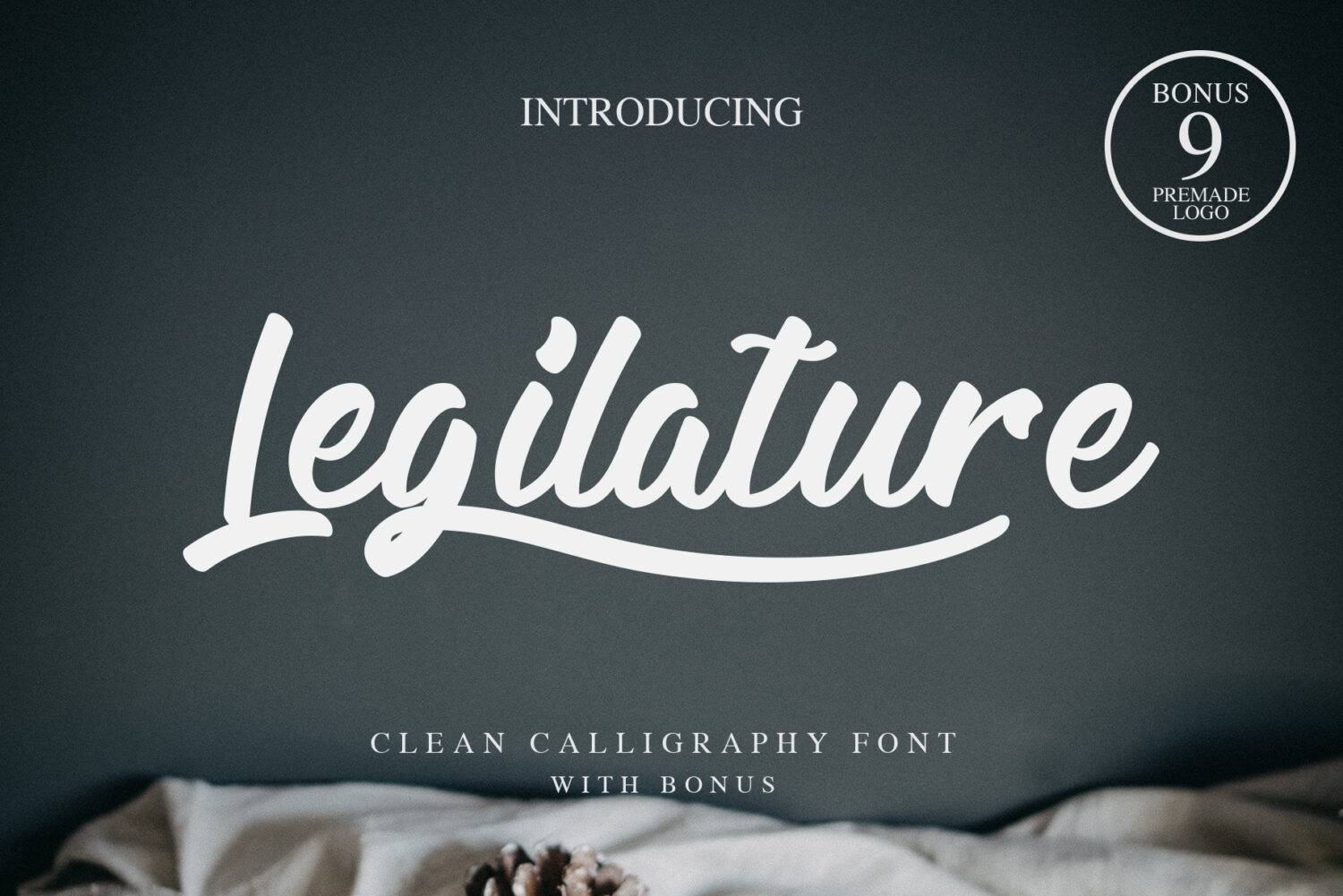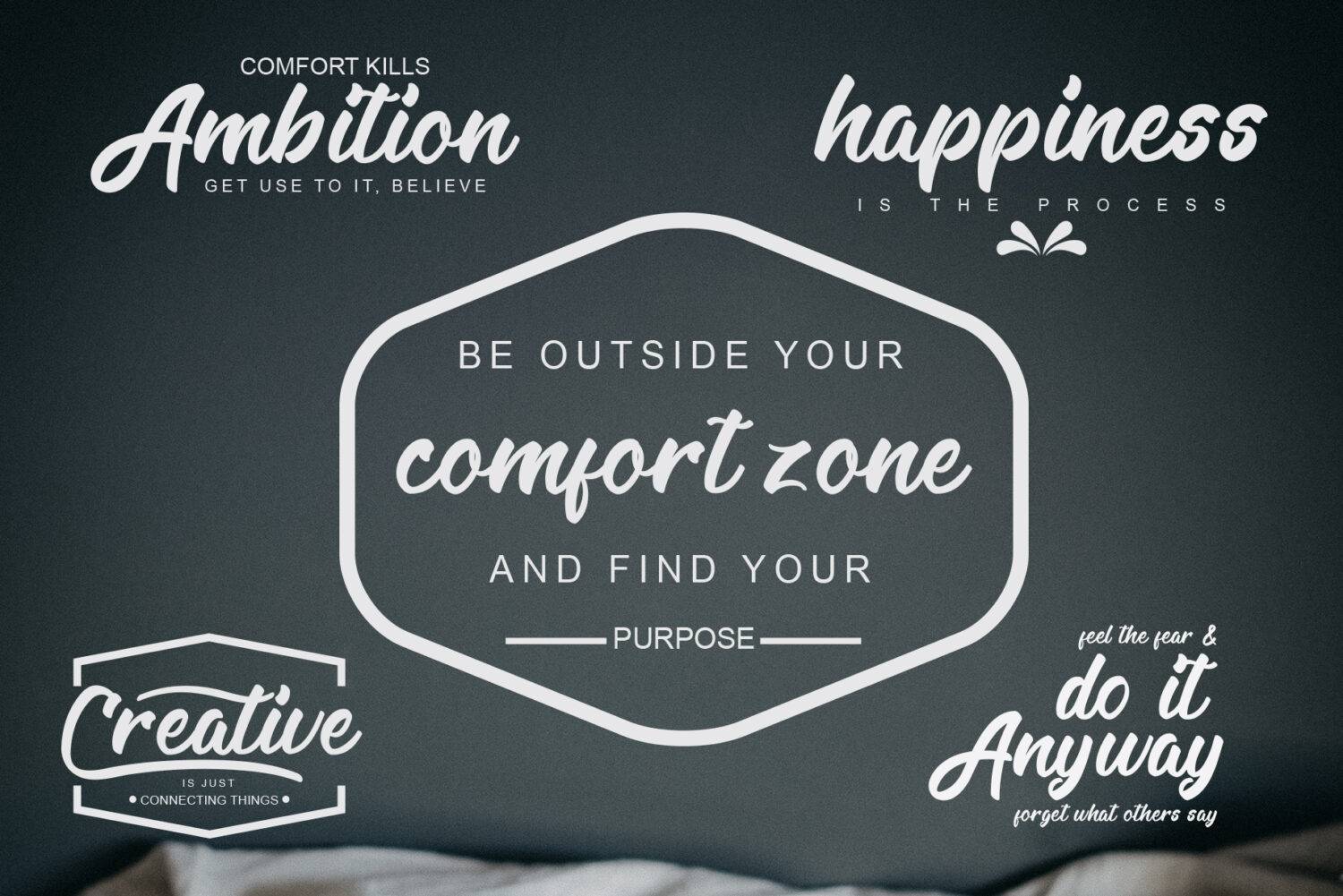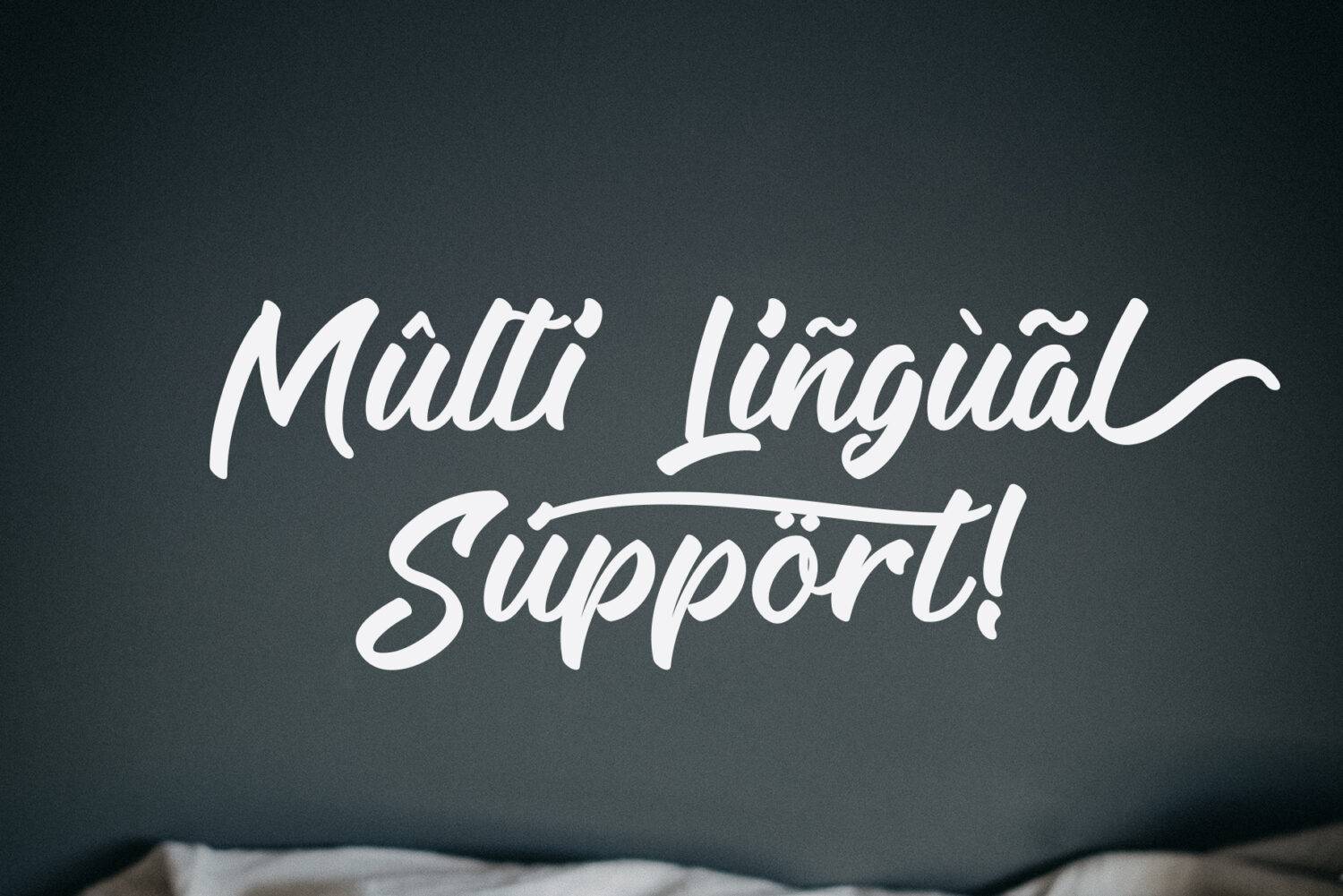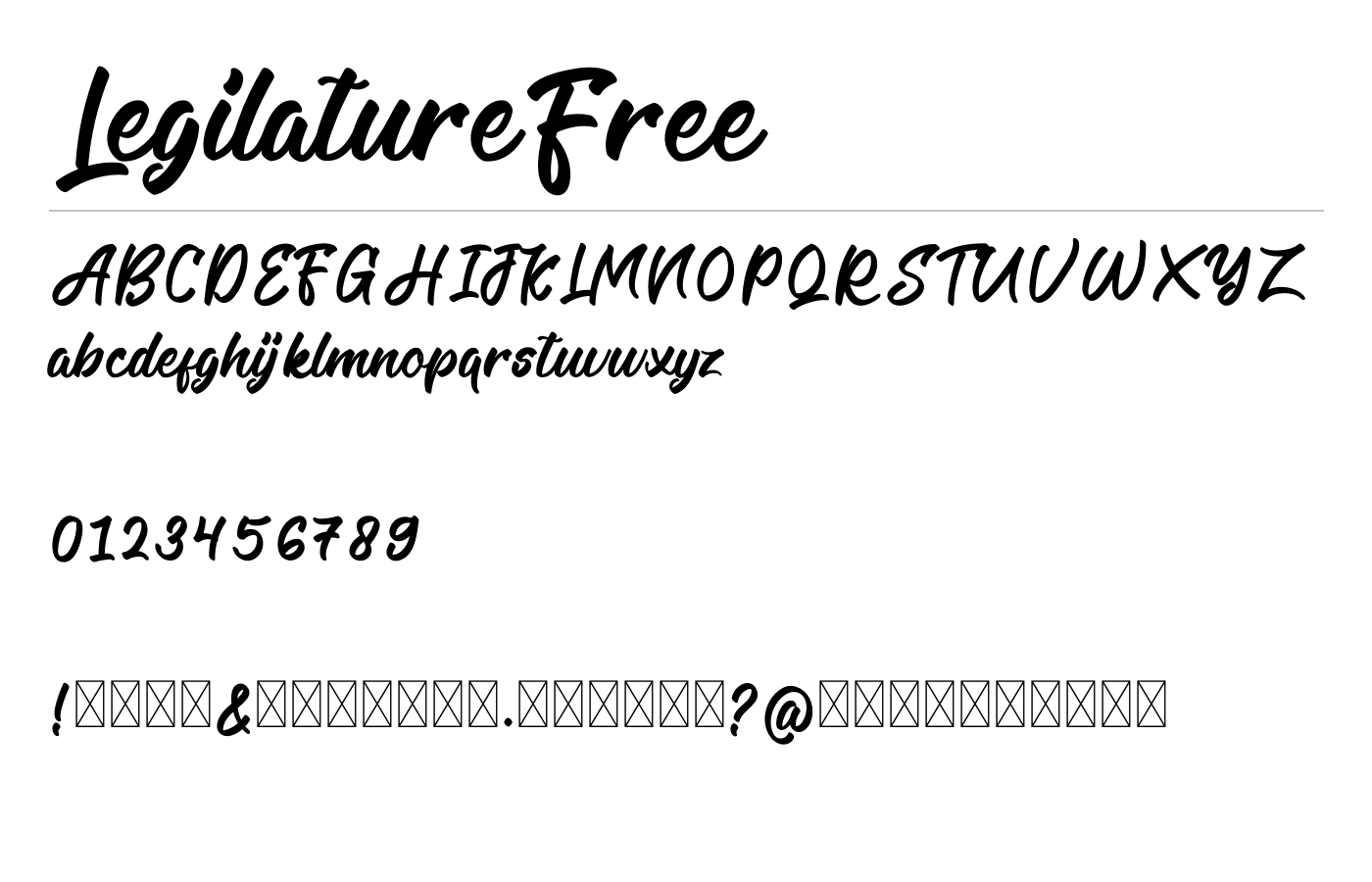
Legilature is a lively script font with a bold, handwritten style that feels both personal and energetic. Its smooth strokes and moderate contrast lend an informal yet confident personality, making it ideal for creative projects, branding, headlines, and invitations where a friendly, approachable vibe is desired. This font works best in settings that benefit from a natural, casual touch without sacrificing readability.
Legilature Font
About Legilature Font